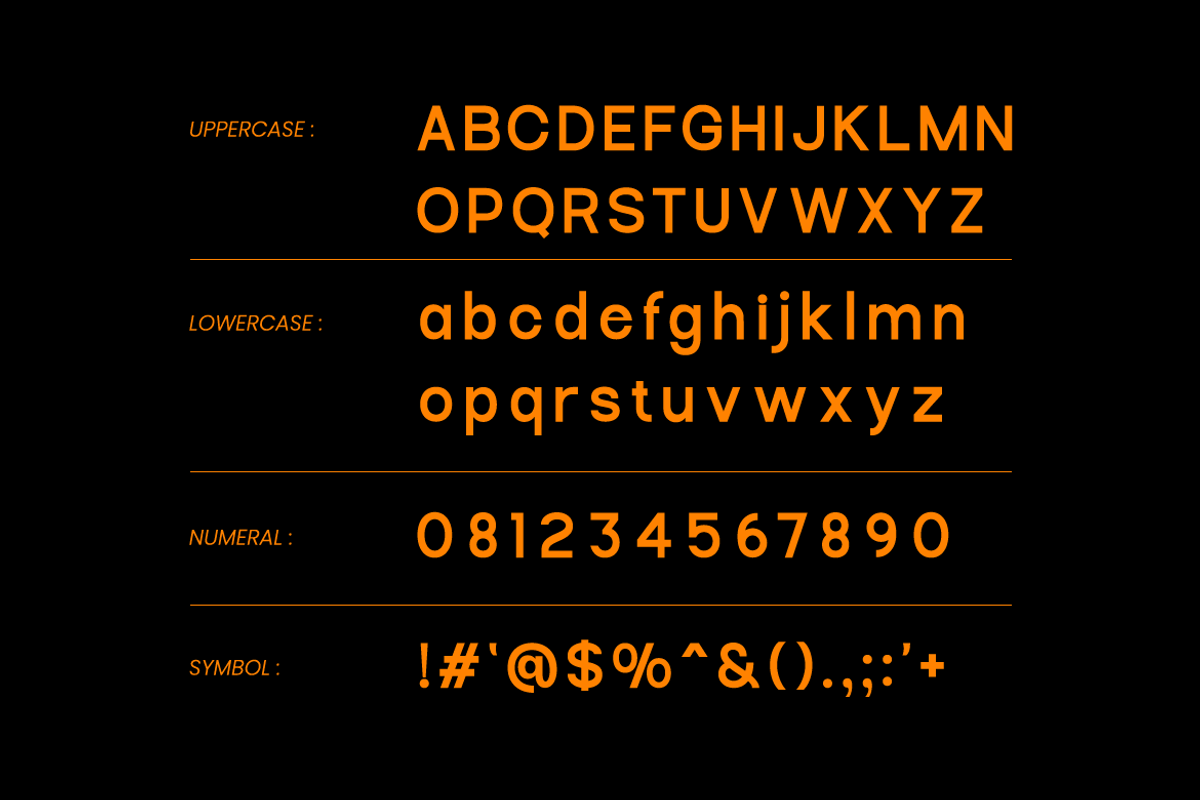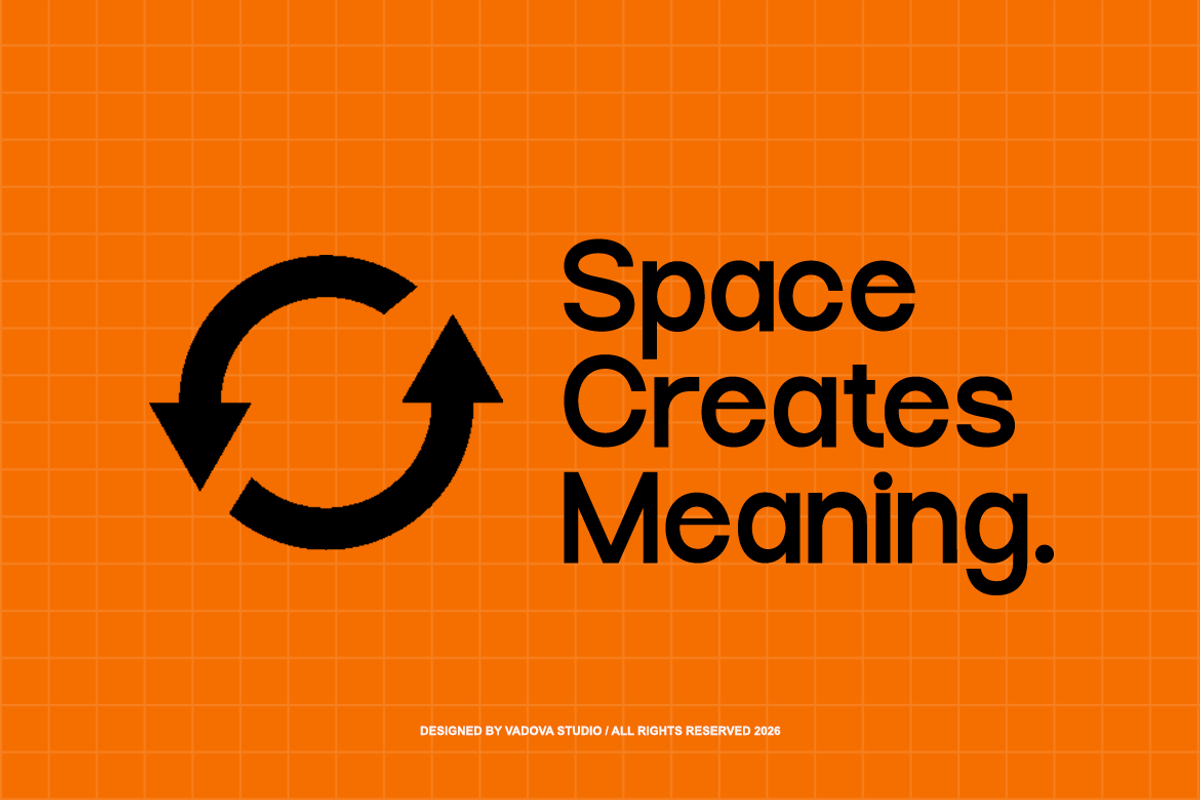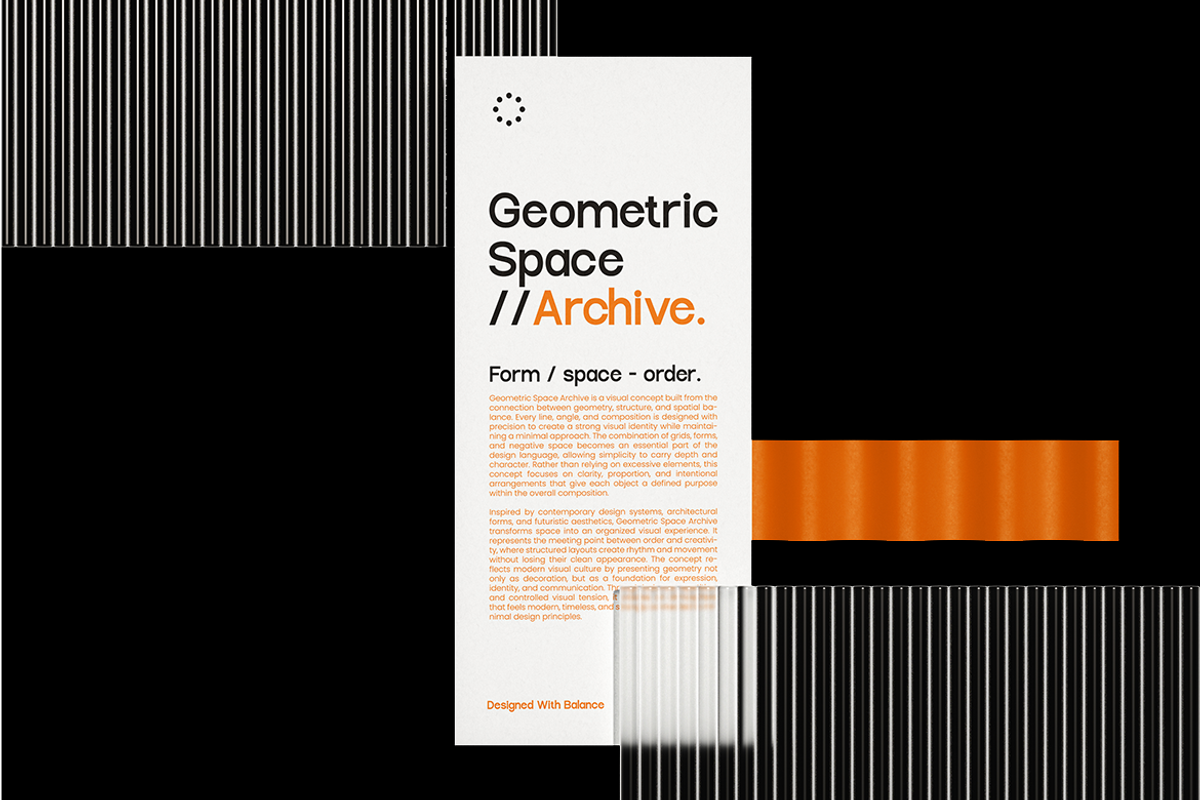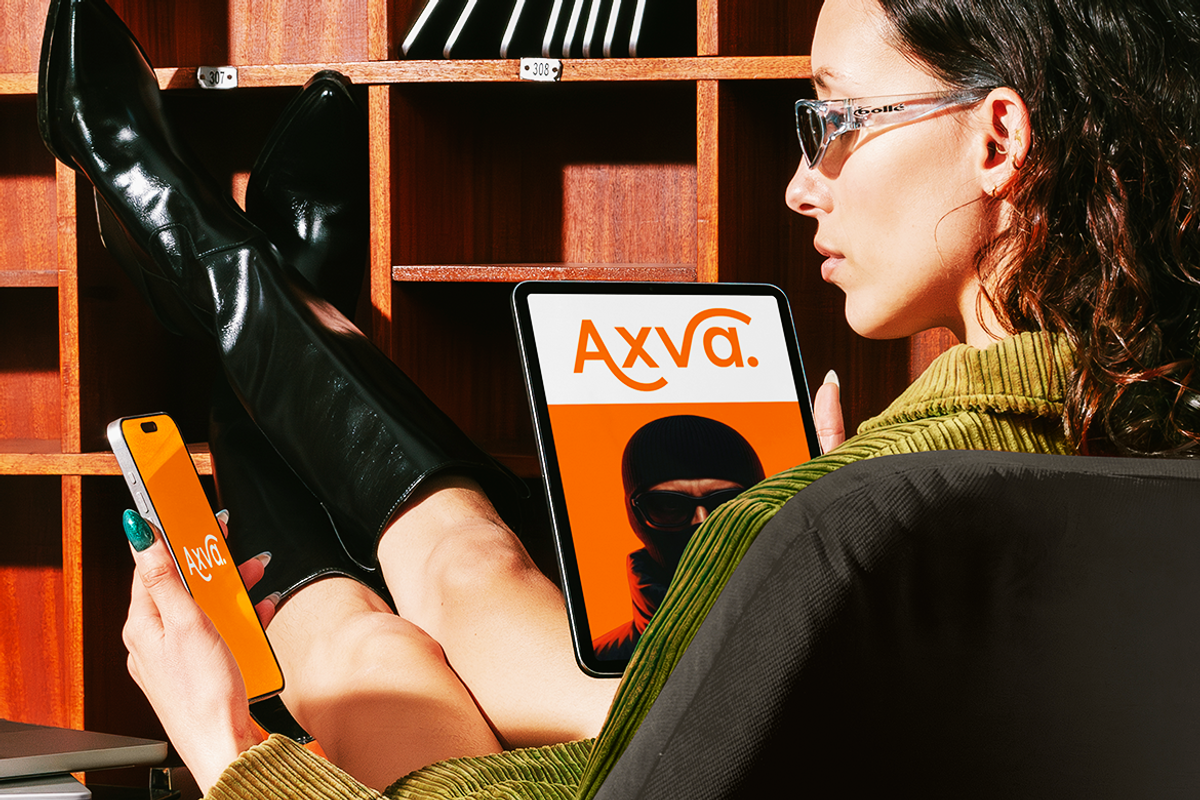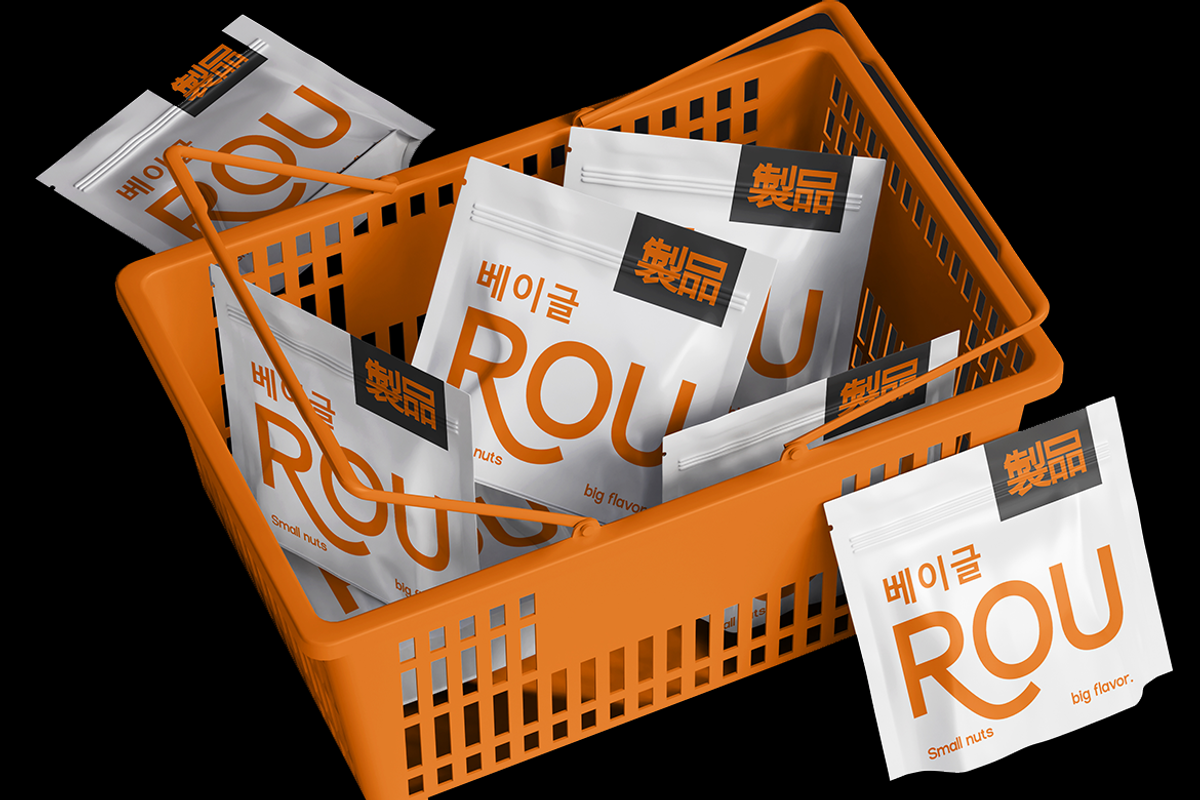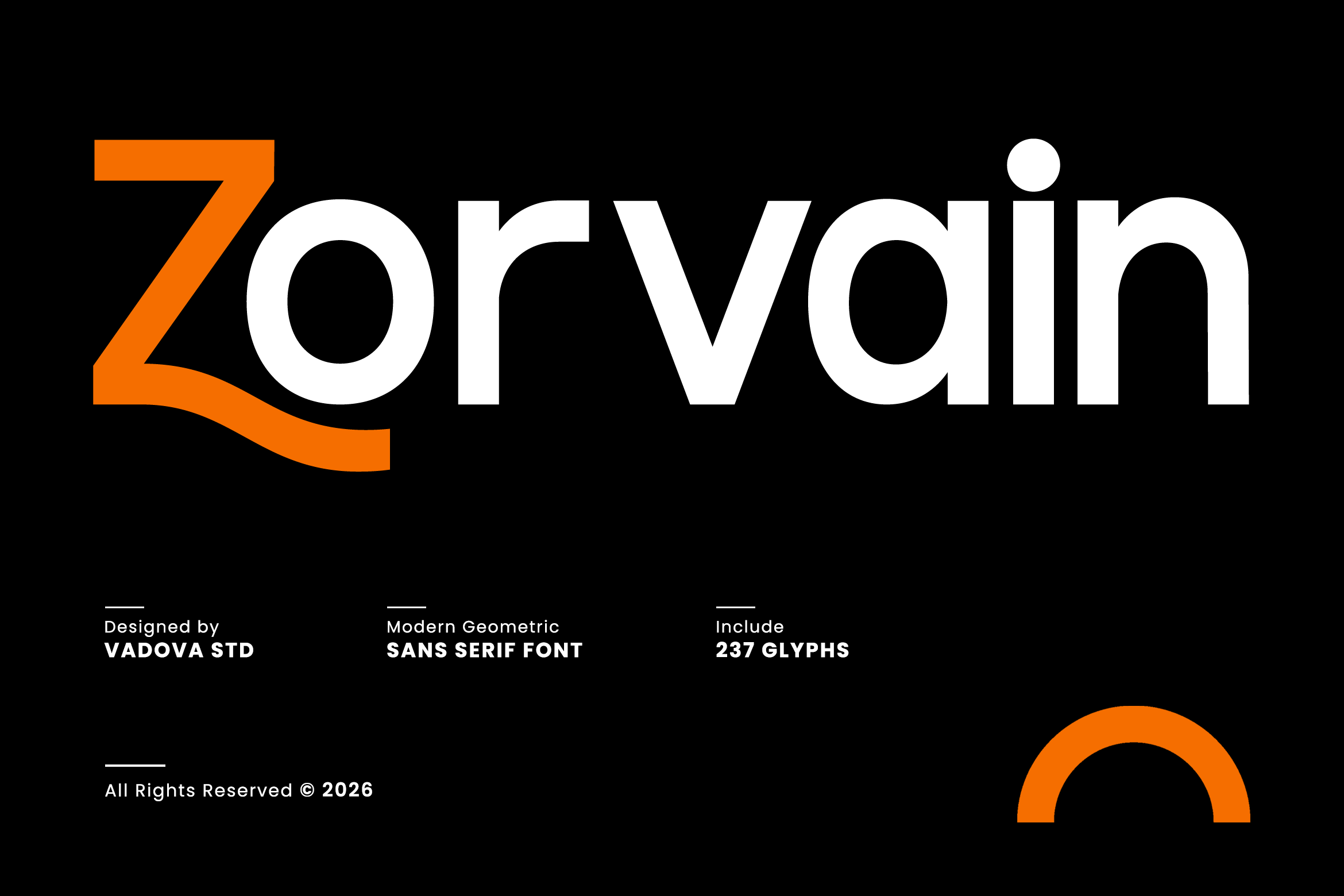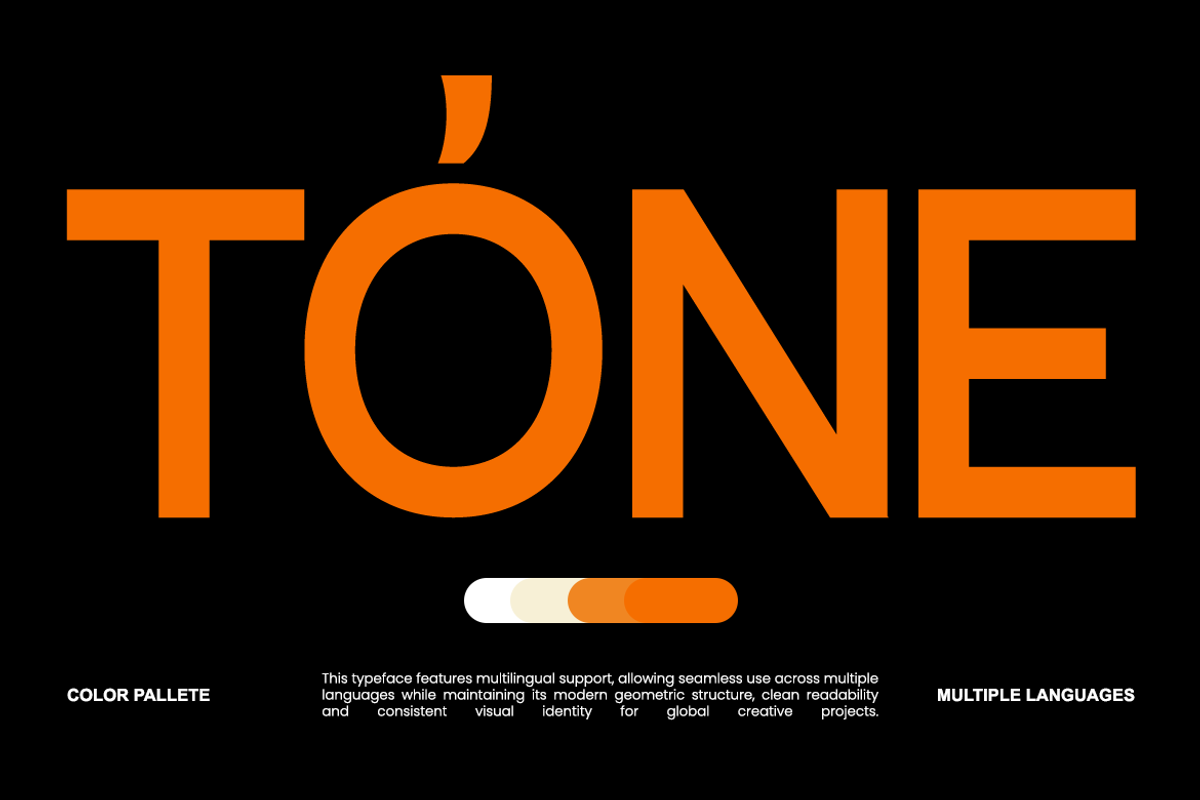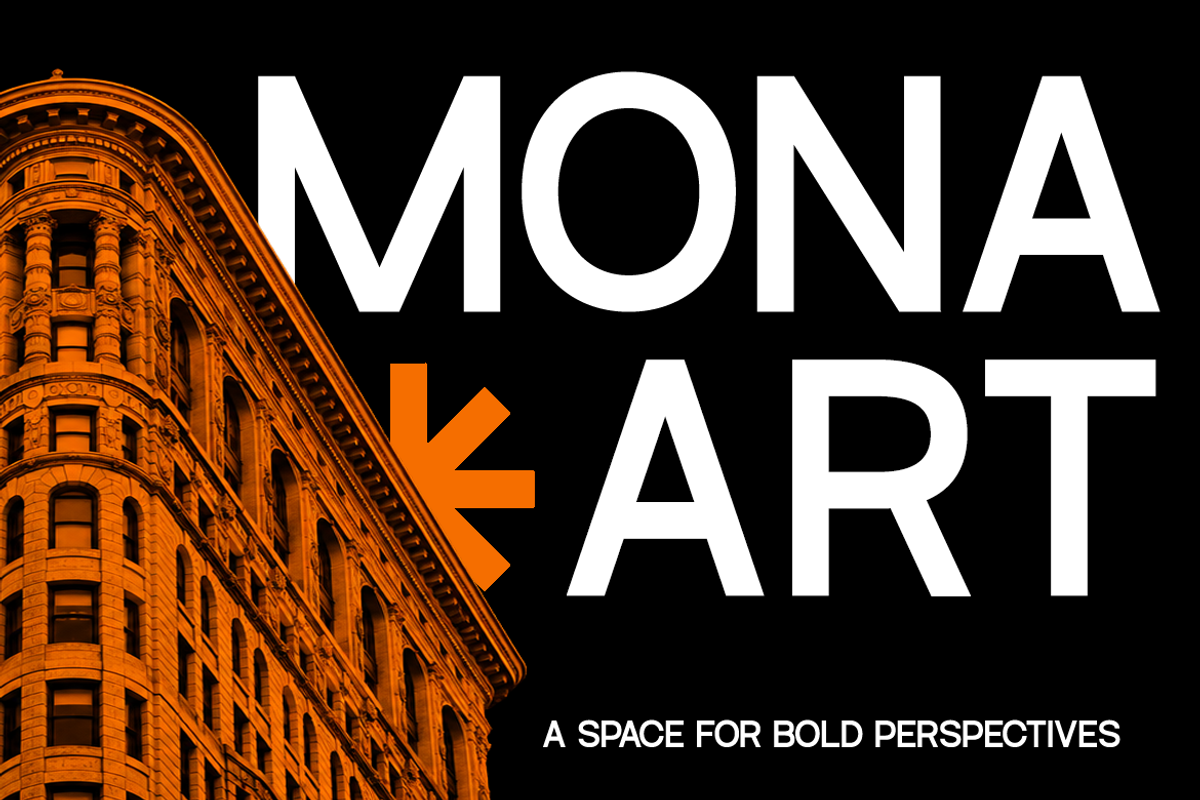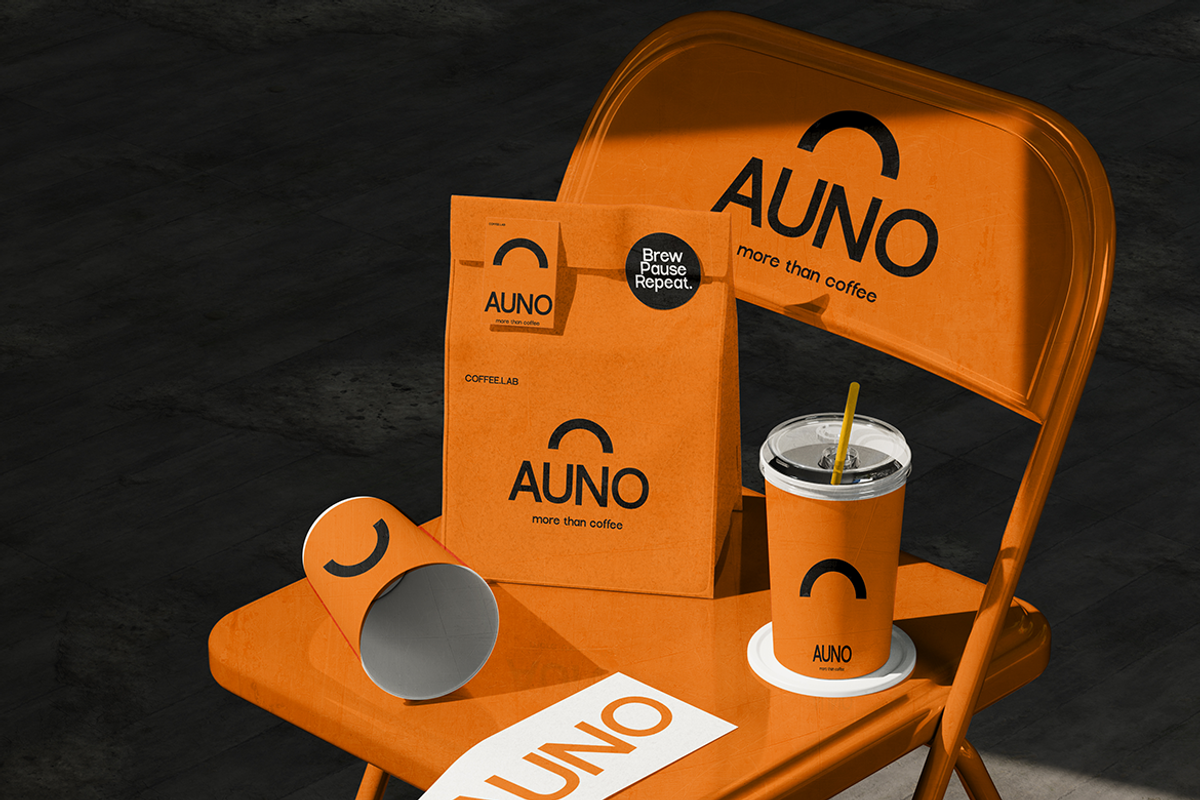
Zorvain Modern Geometric Sans Font
Zorvain is a modern geometric sans serif font featuring clean curves, balanced proportions, and a minimalist contemporary structure. Designed with a sleek geometric appearance and smooth rounded details, this typeface delivers a strong visual identity while maintaining excellent readability across digital and print media.Perfect for branding, logo design, editorial layouts, UI interfaces, posters, technology visuals, and modern corporate projects.
Relevance & Use Cases is perfectly for modern branding systems, technology startups, editorial layouts, corporate identities, digital interfaces, posters, packaging, and minimalist visual projects. Its geometric structure and smooth readability make it highly suitable for professional presentations, UI/UX design, advertising campaigns, social media graphics, and contemporary logo development requiring a clean and futuristic appearance.
Modern geometric sans serif with clean circular and balanced construction
Minimal rounded details that create a sleek and contemporary appearance
Strong uniform stroke weight for bold readability and visual clarity
Wide open counters and smooth curves for modern professional aesthetics
Optimized spacing and proportional letterforms for branding, editorial display
Modern brand identity systems with clean geometric aesthetics
Technology startups, SaaS platforms, and futuristic product branding
UI/UX interfaces, dashboards, and mobile application designs
Editorial layouts, architectural presentations, and minimalist posters
Product packaging, corporate materials, and contemporary marketing visuals
Screen-optimized kerning for responsive web design
Supports numerals, punctuation, and extensive symbol set
Forge a bold modern identity with Zorvain and bring sleek geometric clarity to every design